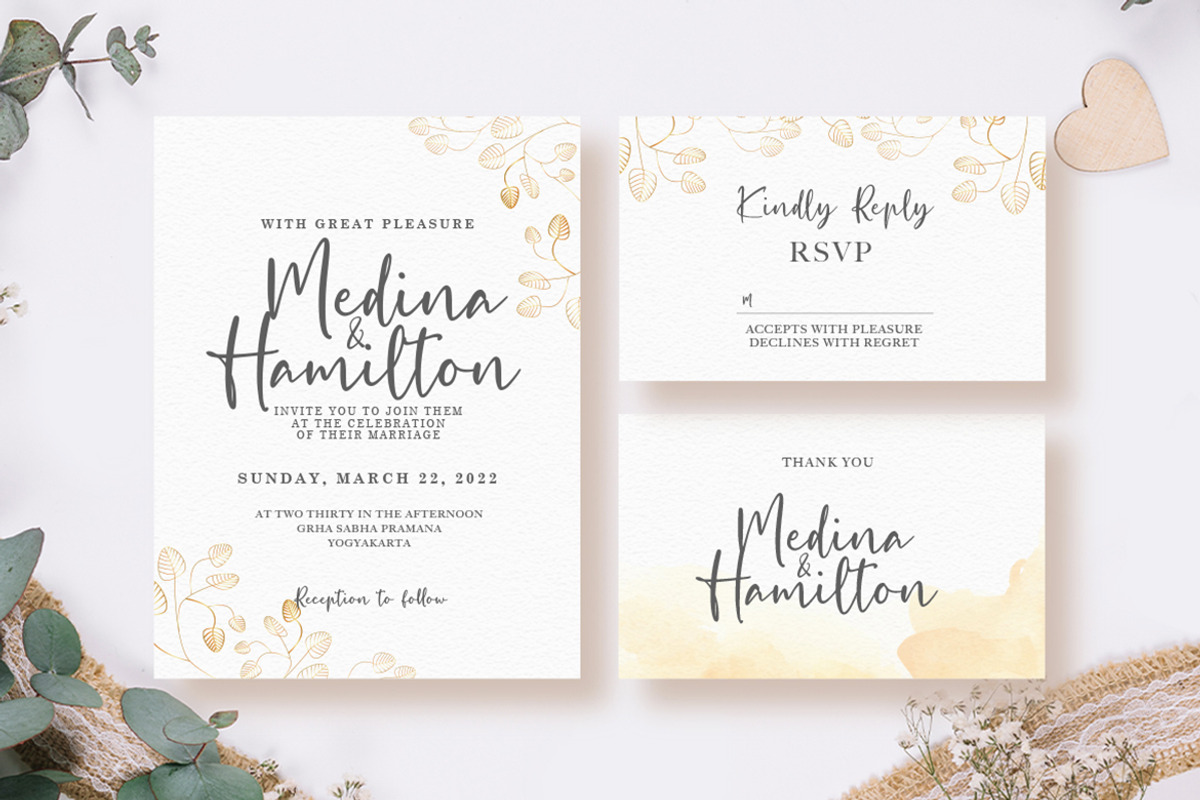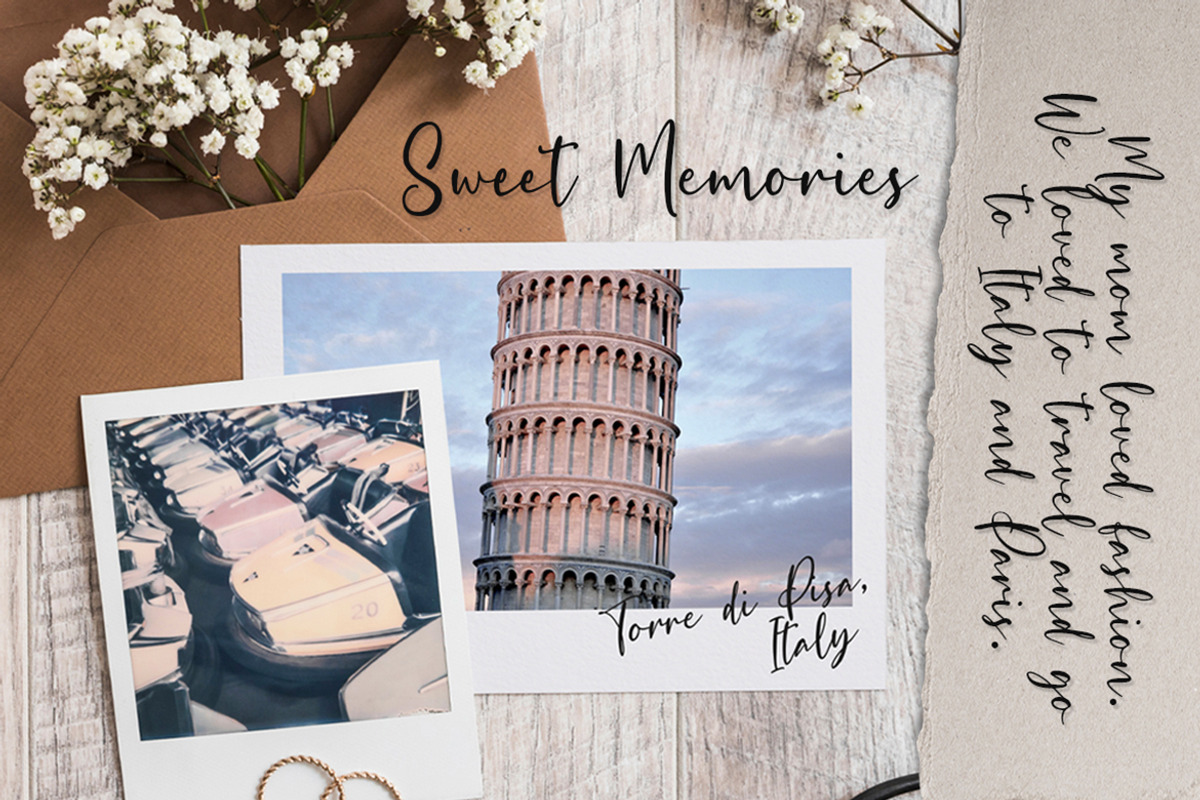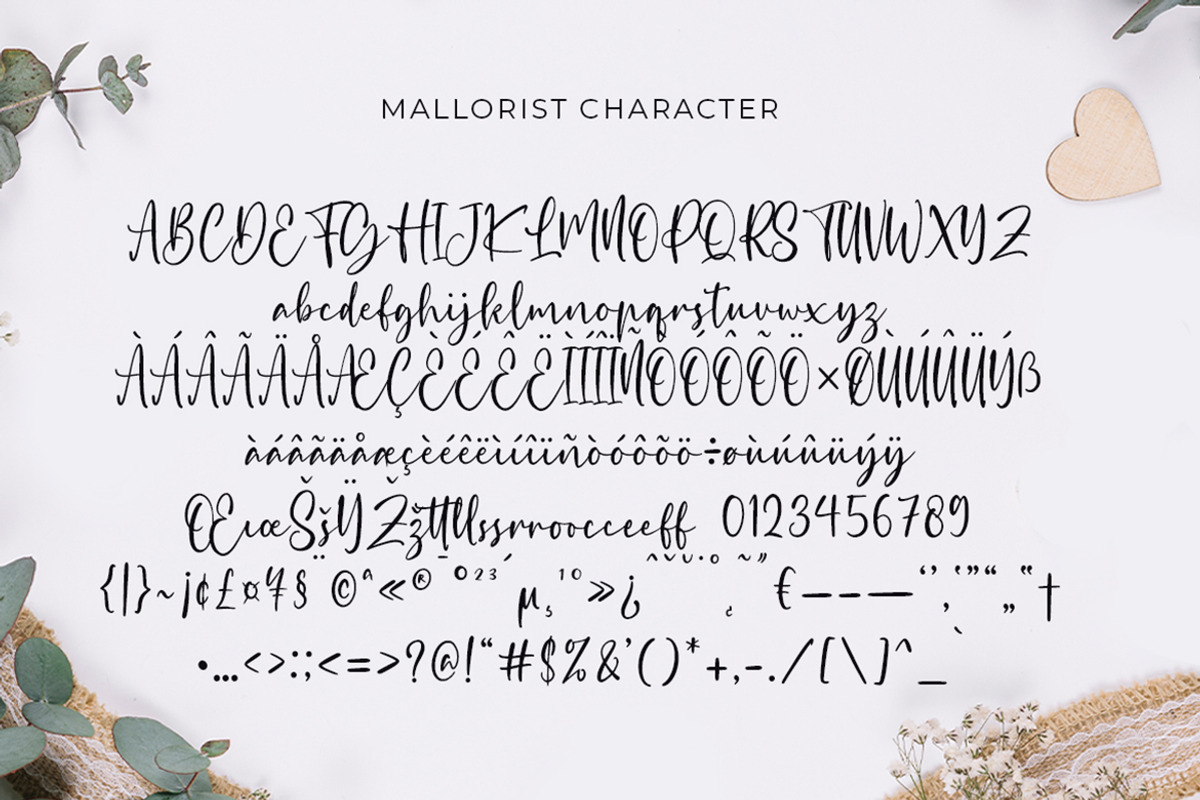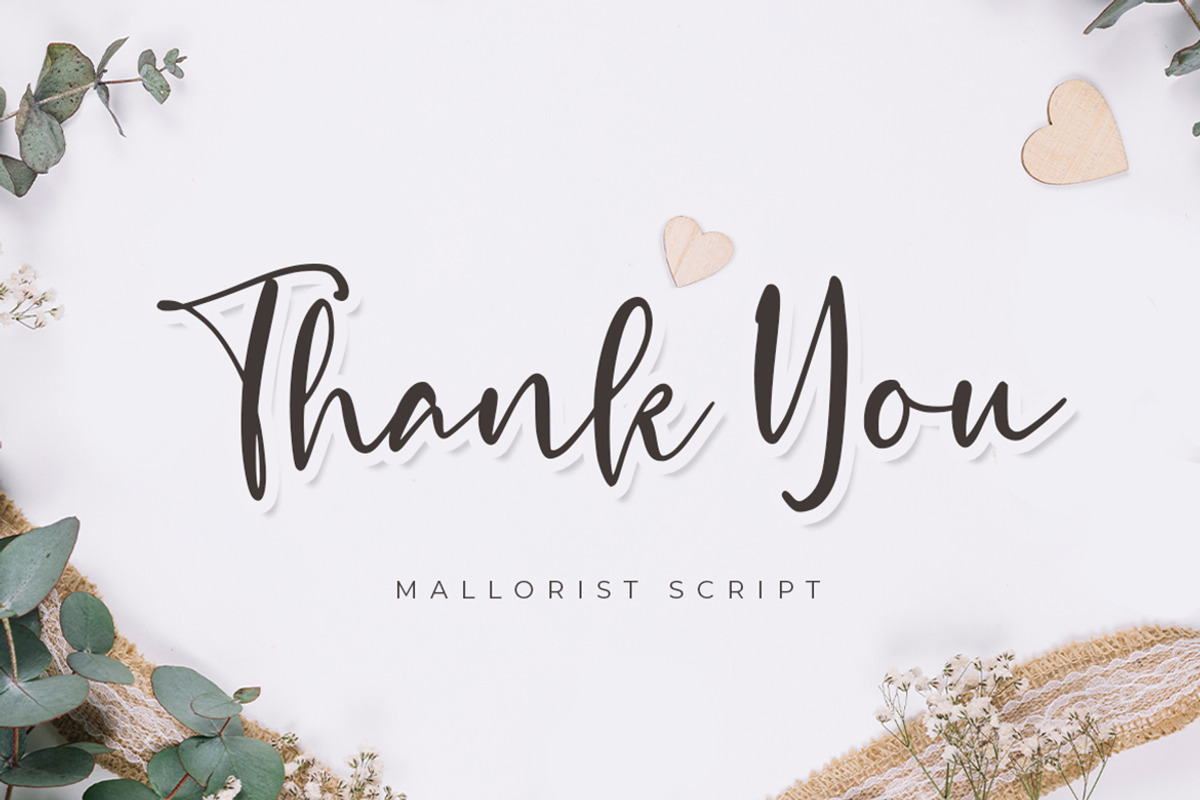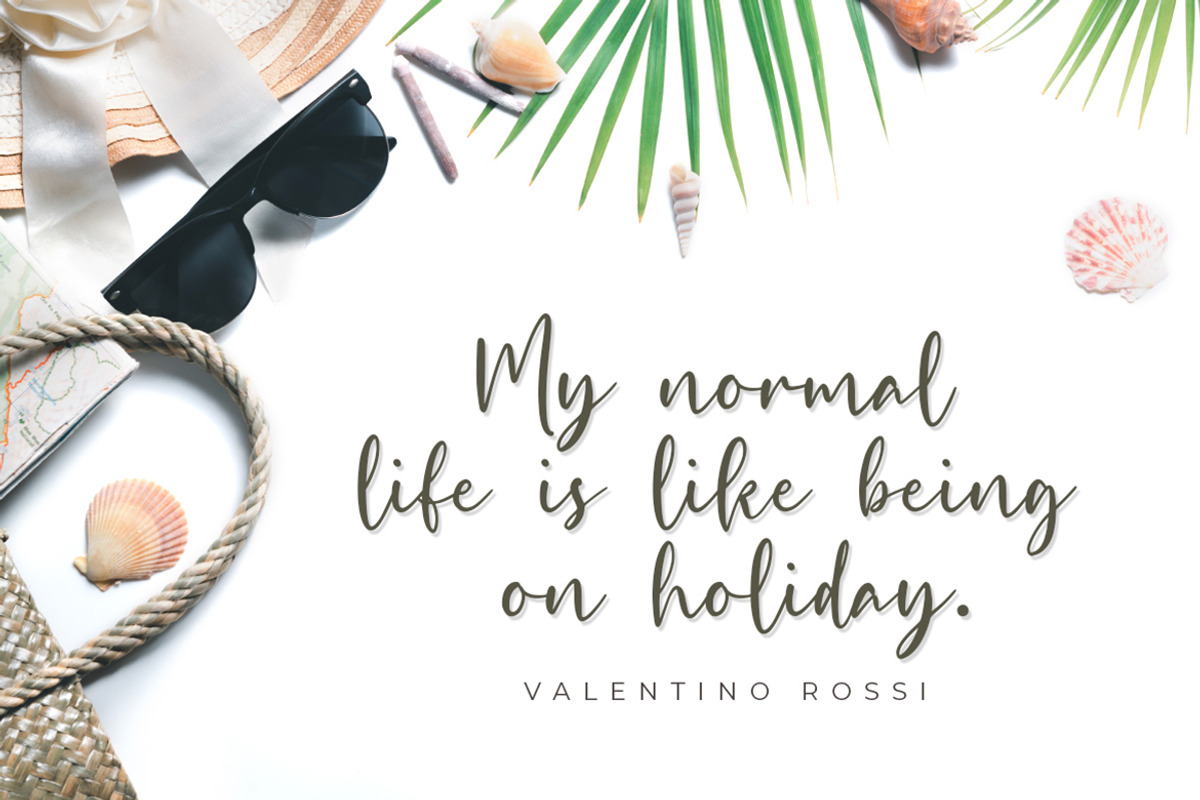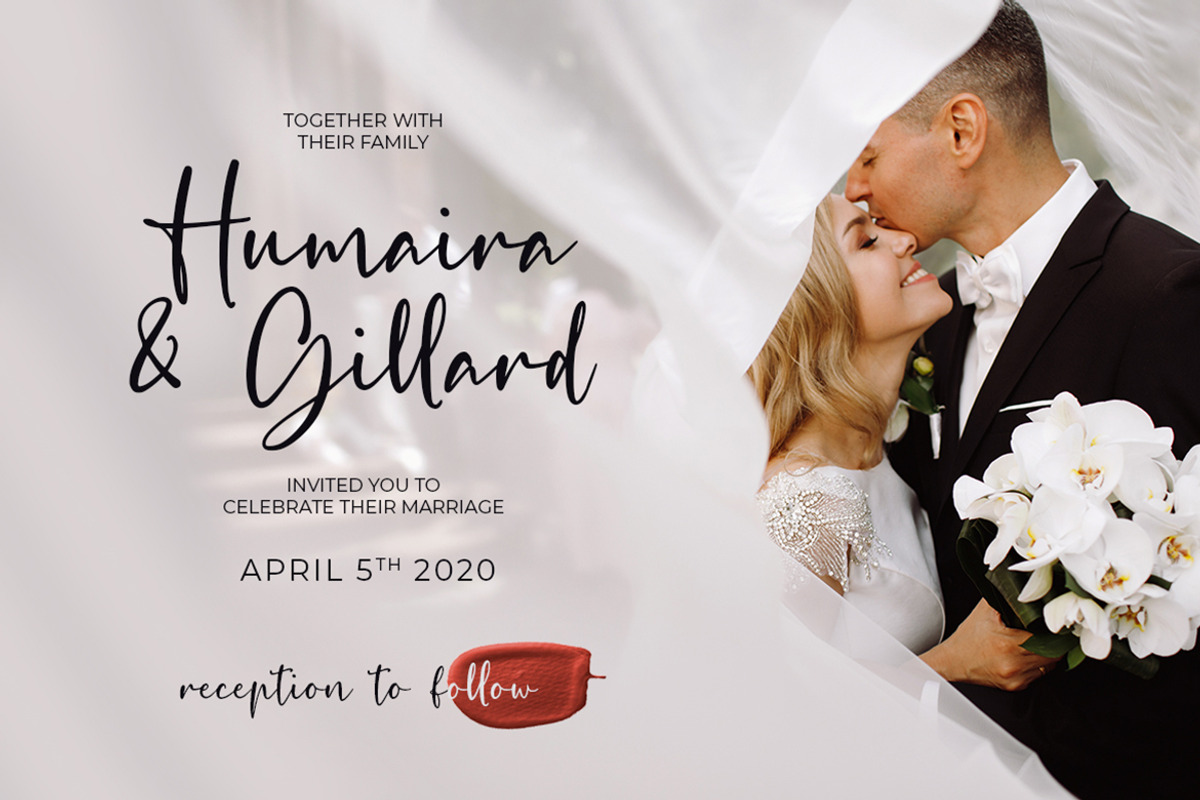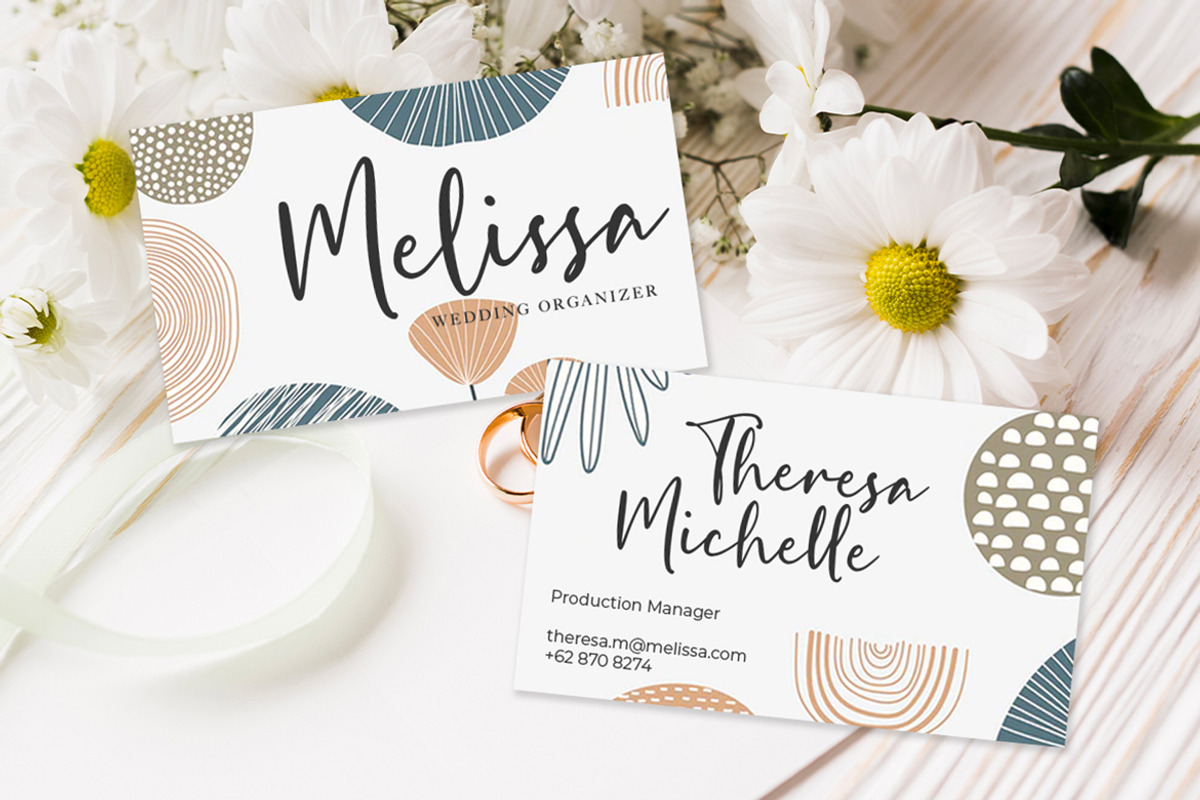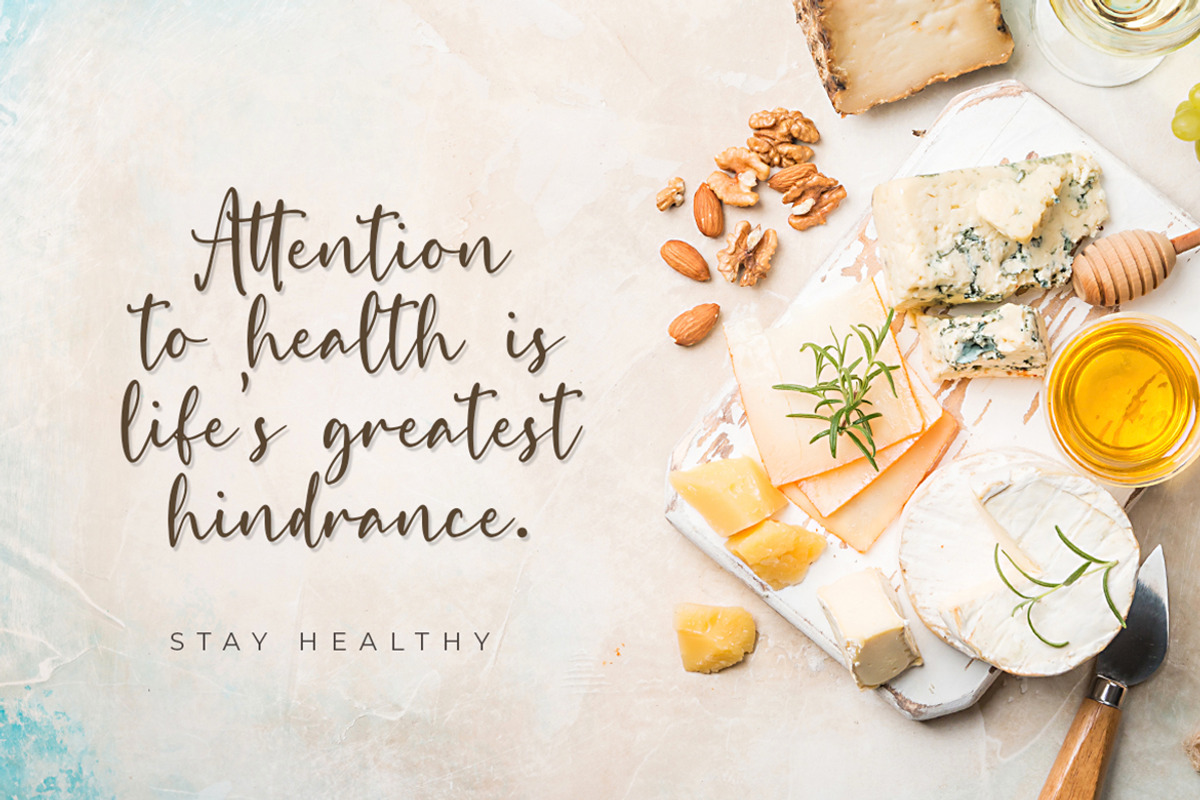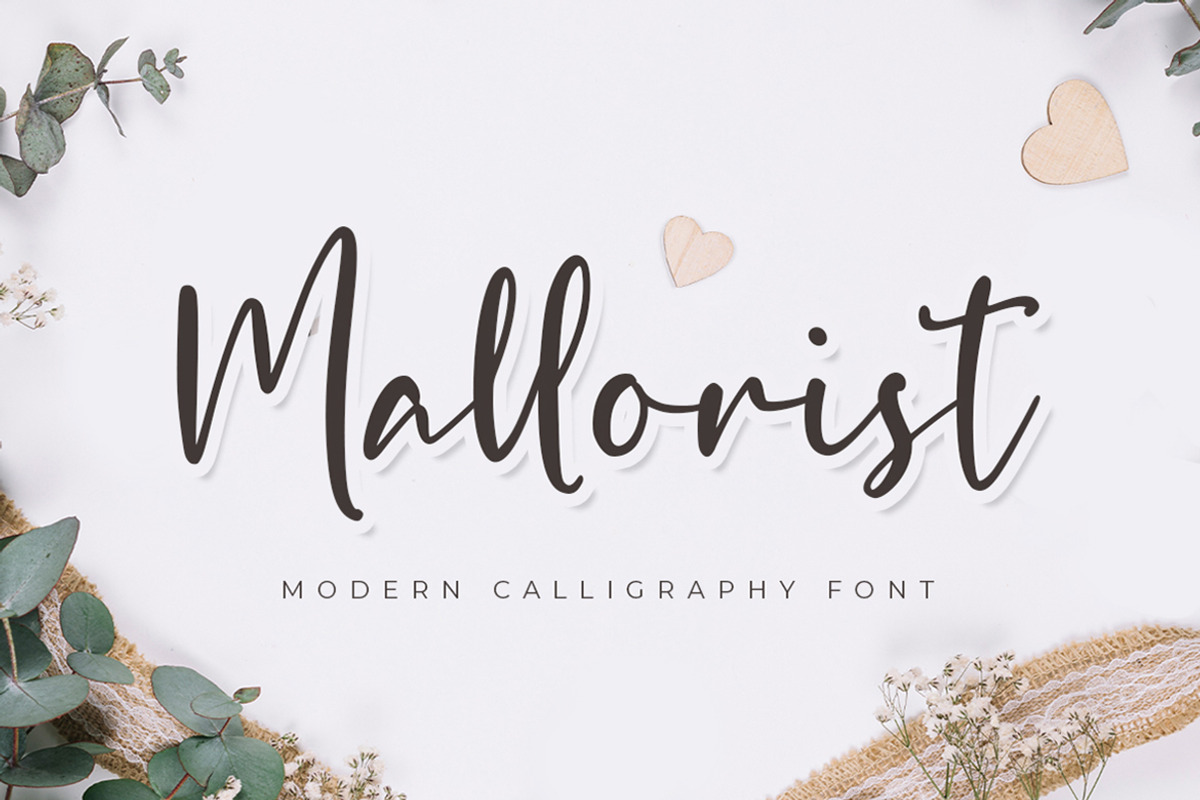
Mallorist - Modern Calligraphy Font
Mallorist is a handwritten font with a modern calligraphy style. This font is great for your next creative project such as logos, printed quotes, invitations, cards, product packaging, headers, logotypes, letters, posters, apparel designs, labels, and etc. Mallorist comes with uppercase, lowercase, numerals, punctuations & multilingual support characters.